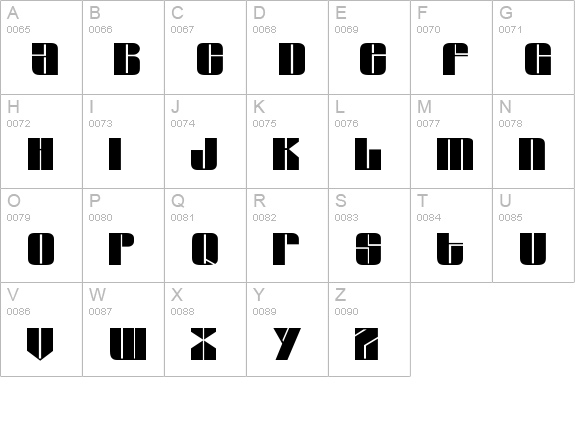
Glacier Font Details
The Glacier font is a sleek and modern typeface that exudes elegance and sophistication. Its clean lines and sharp angles make it perfect for a wide range of design projects, from logos to branding to editorial layouts. The Glacier font is versatile and can be used for both headlines and body text, adding a touch of class to any design. What's even better is that the Glacier font is completely free to download at FontsMarket.com. So whether you're a graphic designer looking to add a touch of sophistication to your projects or a business owner looking for a stylish font for your branding, the Glacier font is the perfect choice. Download it today and elevate your designs with this stunning typeface.